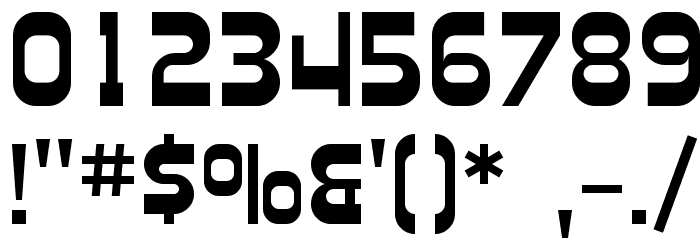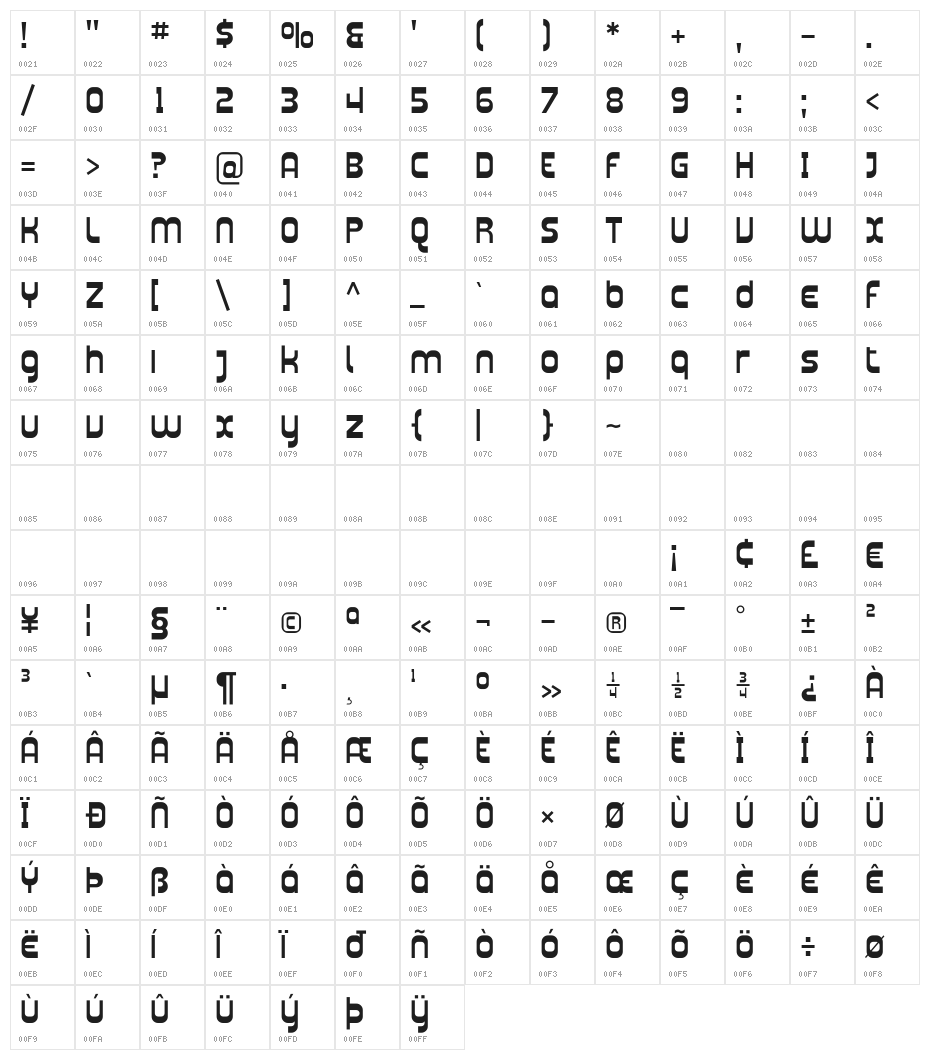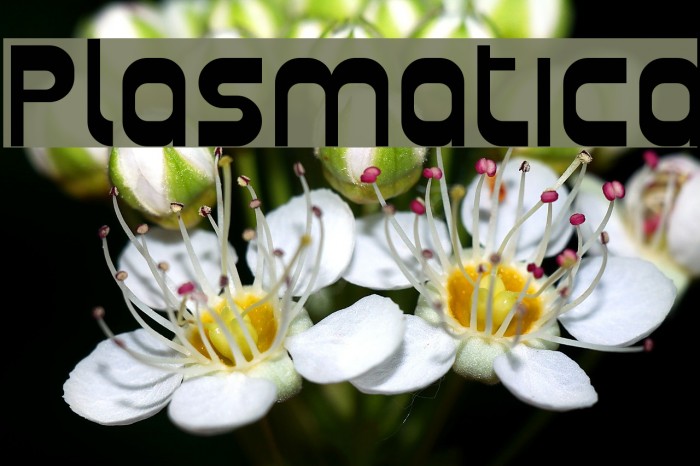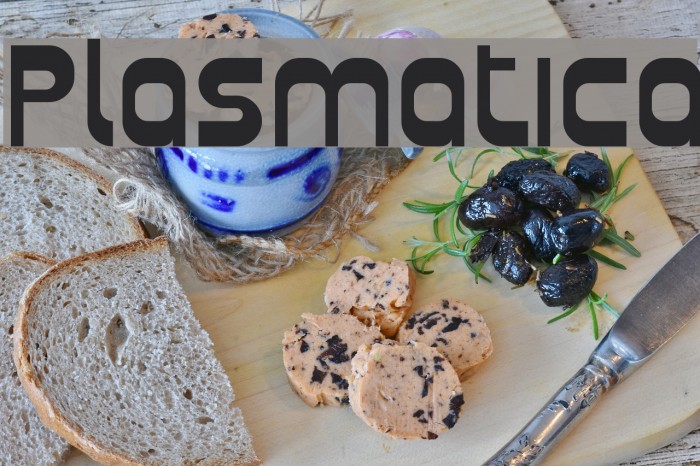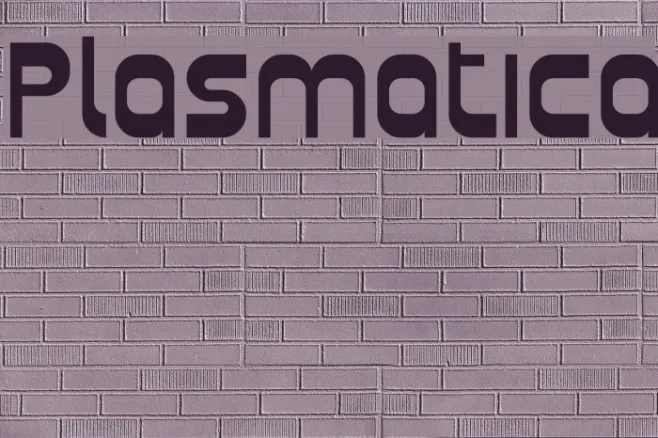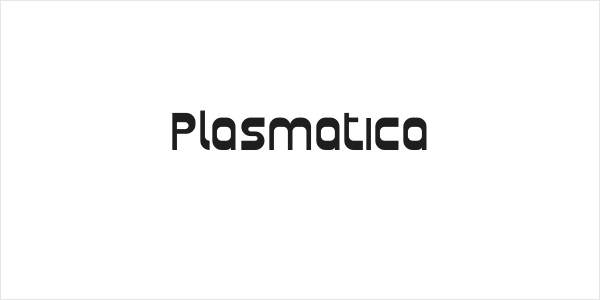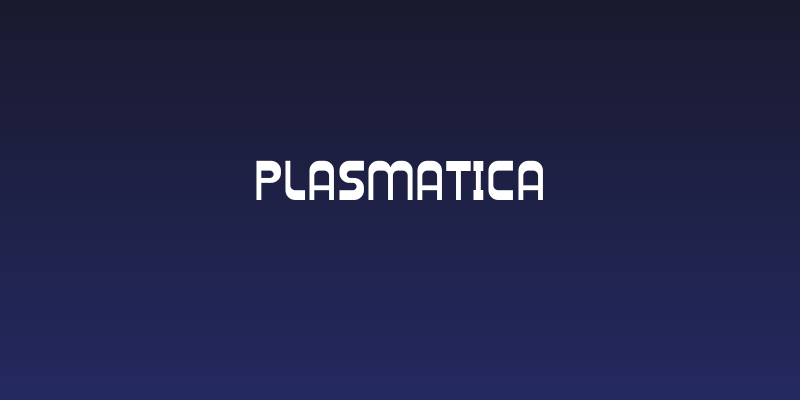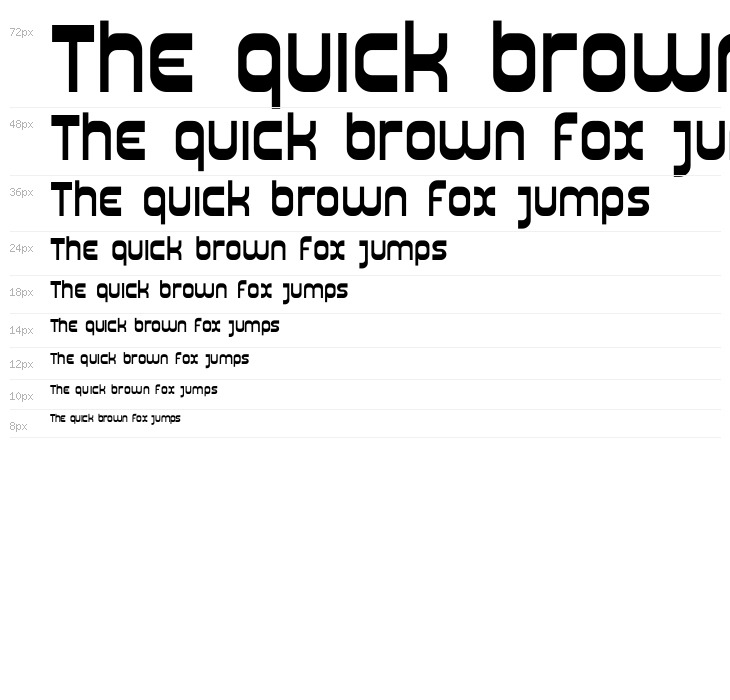
Plasmatica Font
Plasmatica Description
This font features a bold, geometric design with rounded edges, giving it a futuristic and modern appearance. The characters are uniform in width, creating a cohesive and balanced look. The uppercase and lowercase letters maintain a consistent style, with smooth curves and clean lines. The numerals and special characters follow the same design principles, ensuring readability and visual harmony. The overall aesthetic is sleek and contemporary, making it suitable for a variety of digital and print applications.
| Proposed Projects | Ideal for technology branding, digital interfaces, video game graphics, and modern advertising campaigns. |